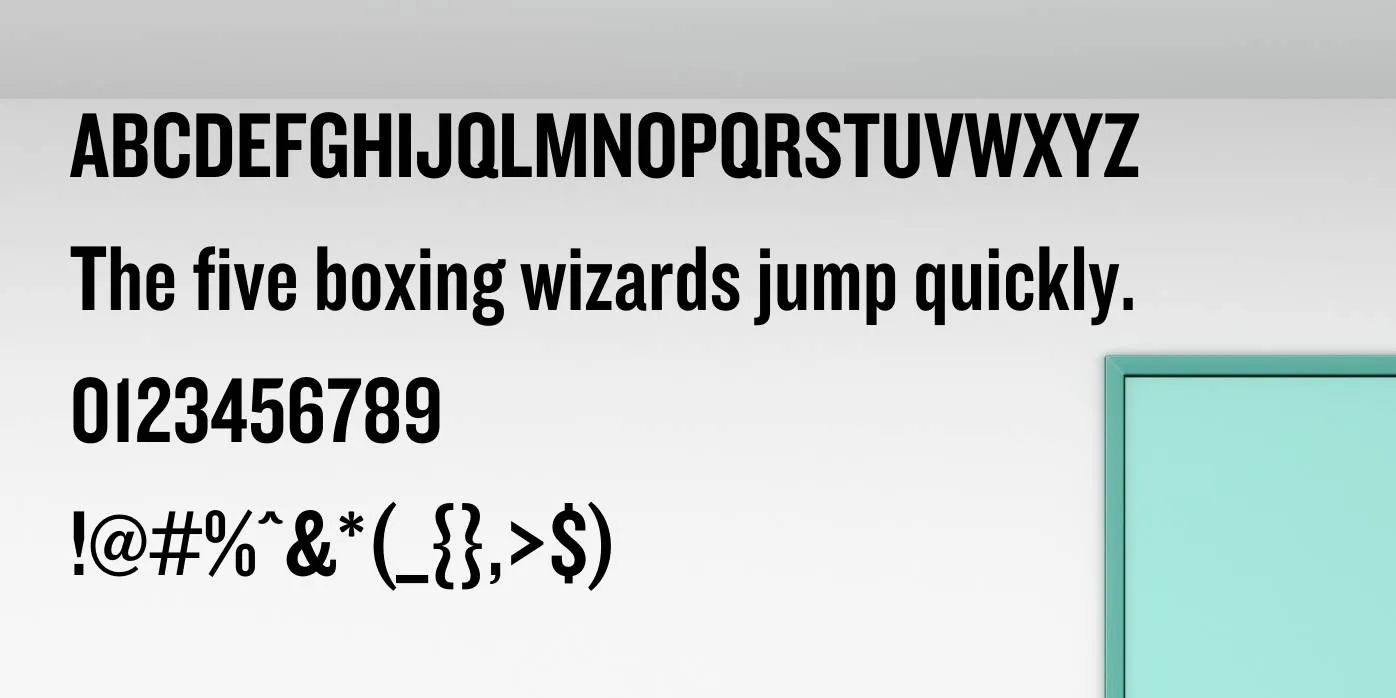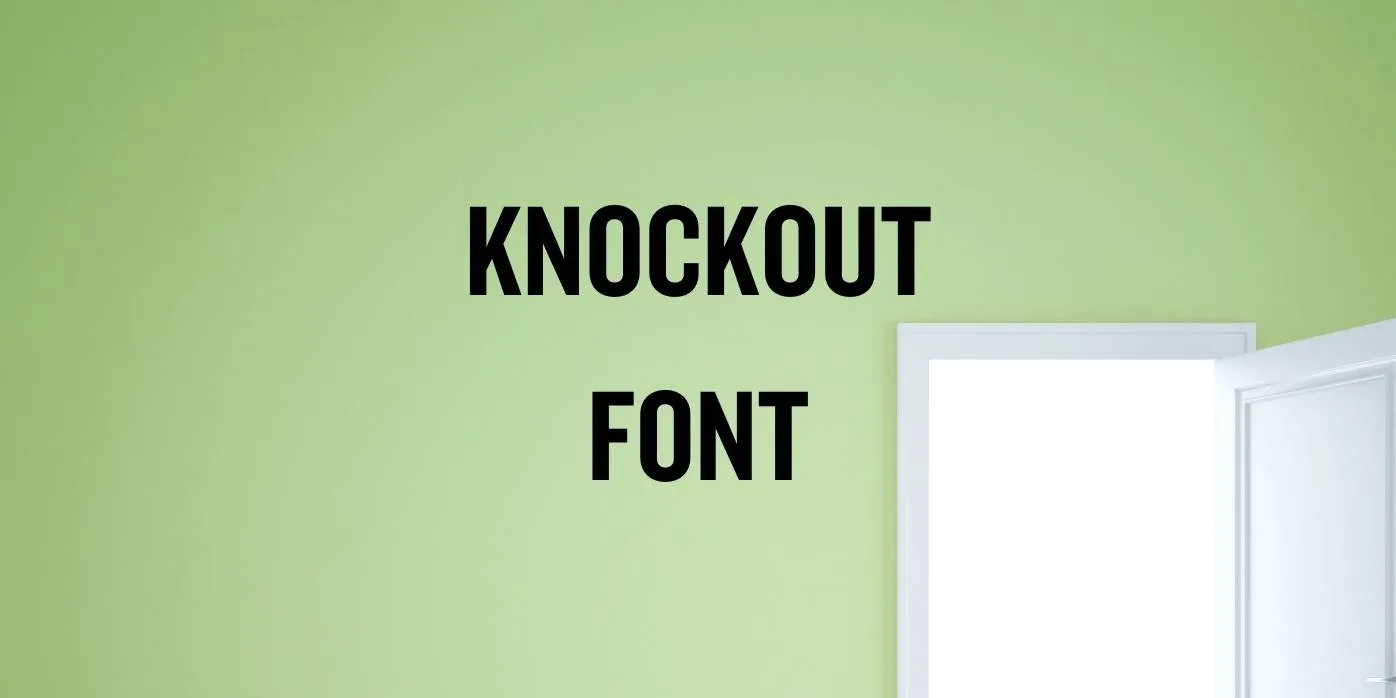
Knockout Font
Introducing one of the most popular fonts that seem like Roboto Font that is Knockout font. The typeface belongs to a sans serif font family and the designer of the outstanding font are Tobias Frere-Jones & Jonathan Hoefler. These designers are very popular that have made immense famous typefaces that gained too much popularity. The font has OTF and TTF features and is free for personal use only.
It has 5 super cool weights that include Uppercase and lowercase letters, numbers, and special symbols also. This typeface can fulfill all the needs of any modern design in the new age. The font family supports many international languages. Its TTF regular base style characters have very unique characters as someone had connected it with the help of blocks.
It’s all characters look like a high wall due to their unique shape.